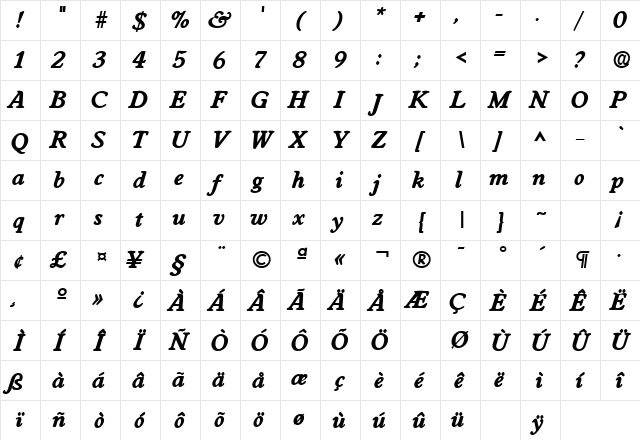
WorcesterLH Bold Italic Free Font
WorcesterLH Bold Italic
Complete WorcesterLH Bold Italic glyph index. Displaying only characters natively supported by WorcesterLH Bold Italic font.
Design Context for WorcesterLH
WorcesterLH is a composed and adaptable typeface that performs quietly and consistently across a wide range of design contexts. The slanted form adds forward momentum and visual energy. Its bold stroke weight gives it real presence on the page.
Pro Tip: Use WorcesterLH for emphasis, pull quotes, and subheadings where its slanted energy can add rhythm to the layout.